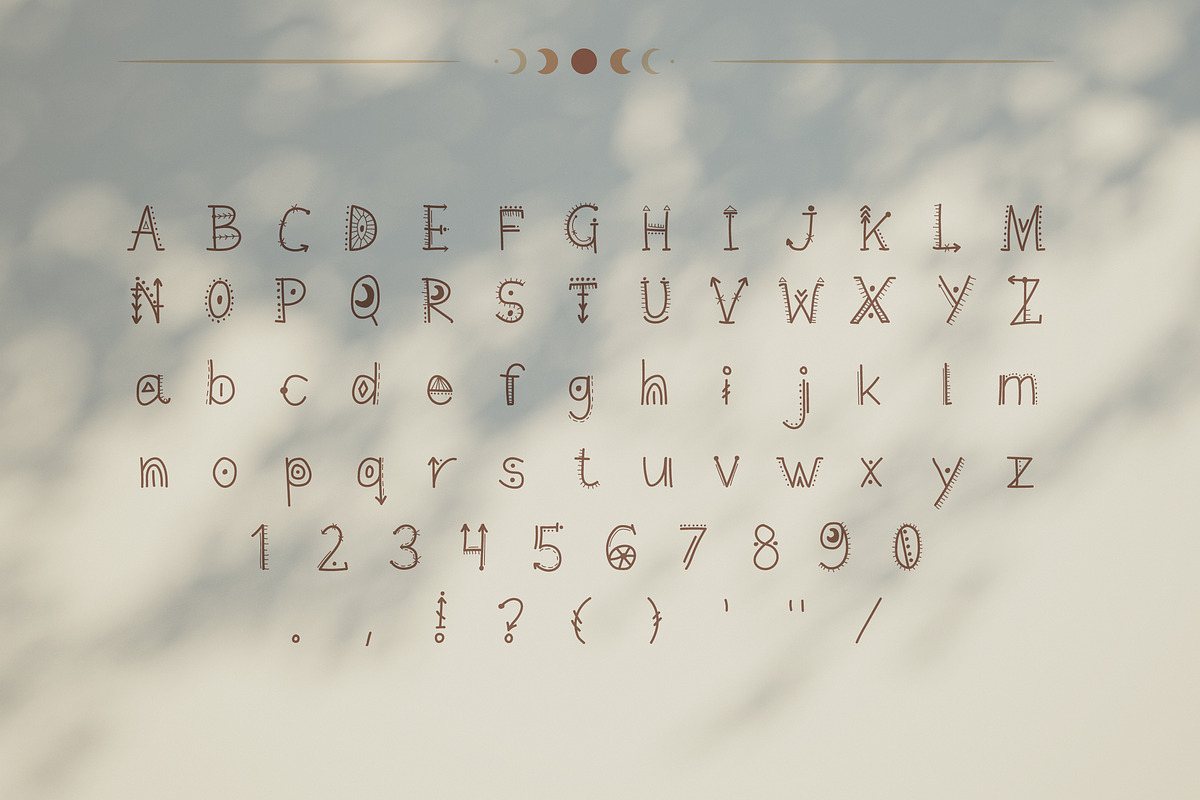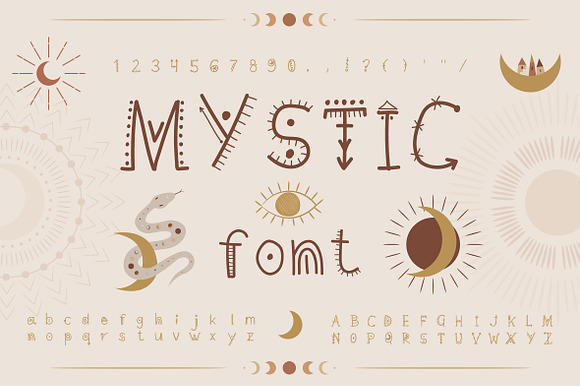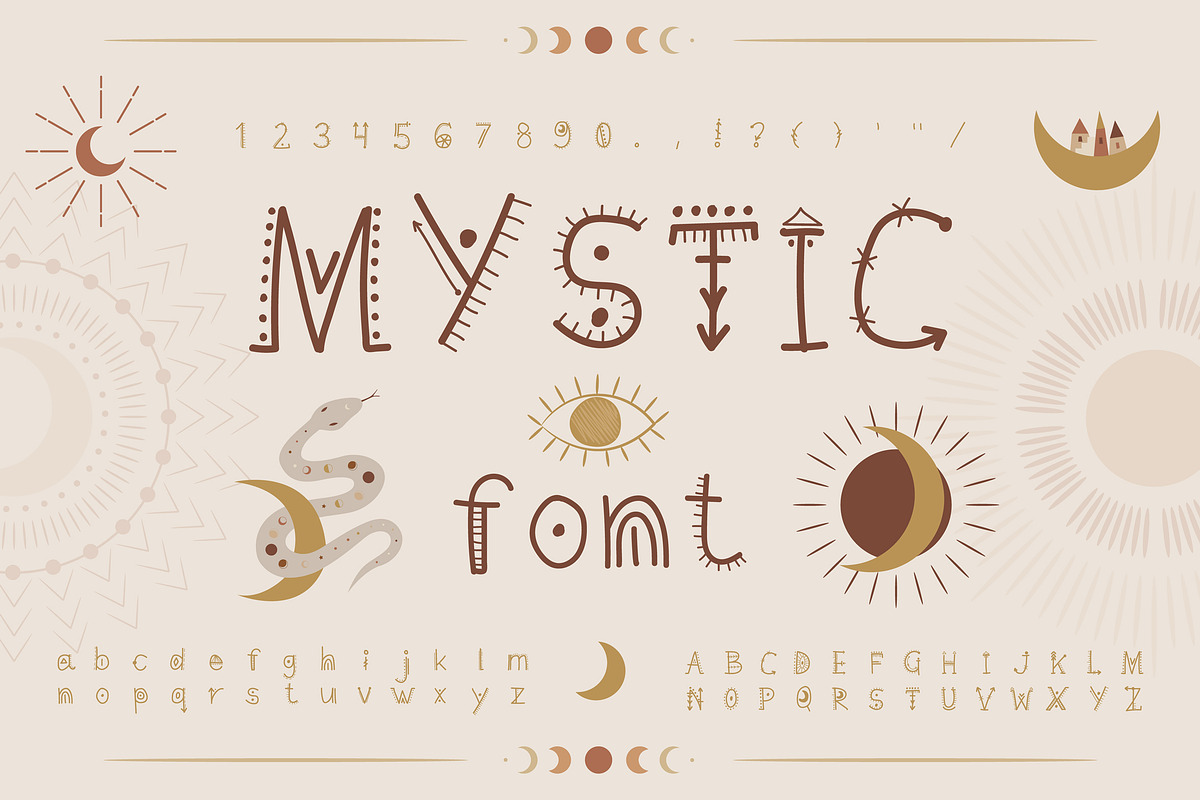
Mystic font. handwritten
- Mistic Regular
Why Mystic font. handwritten is worth a look
Mystic font. handwritten by Chikovnaya fits naturally into Branding, posters, packaging, typography.